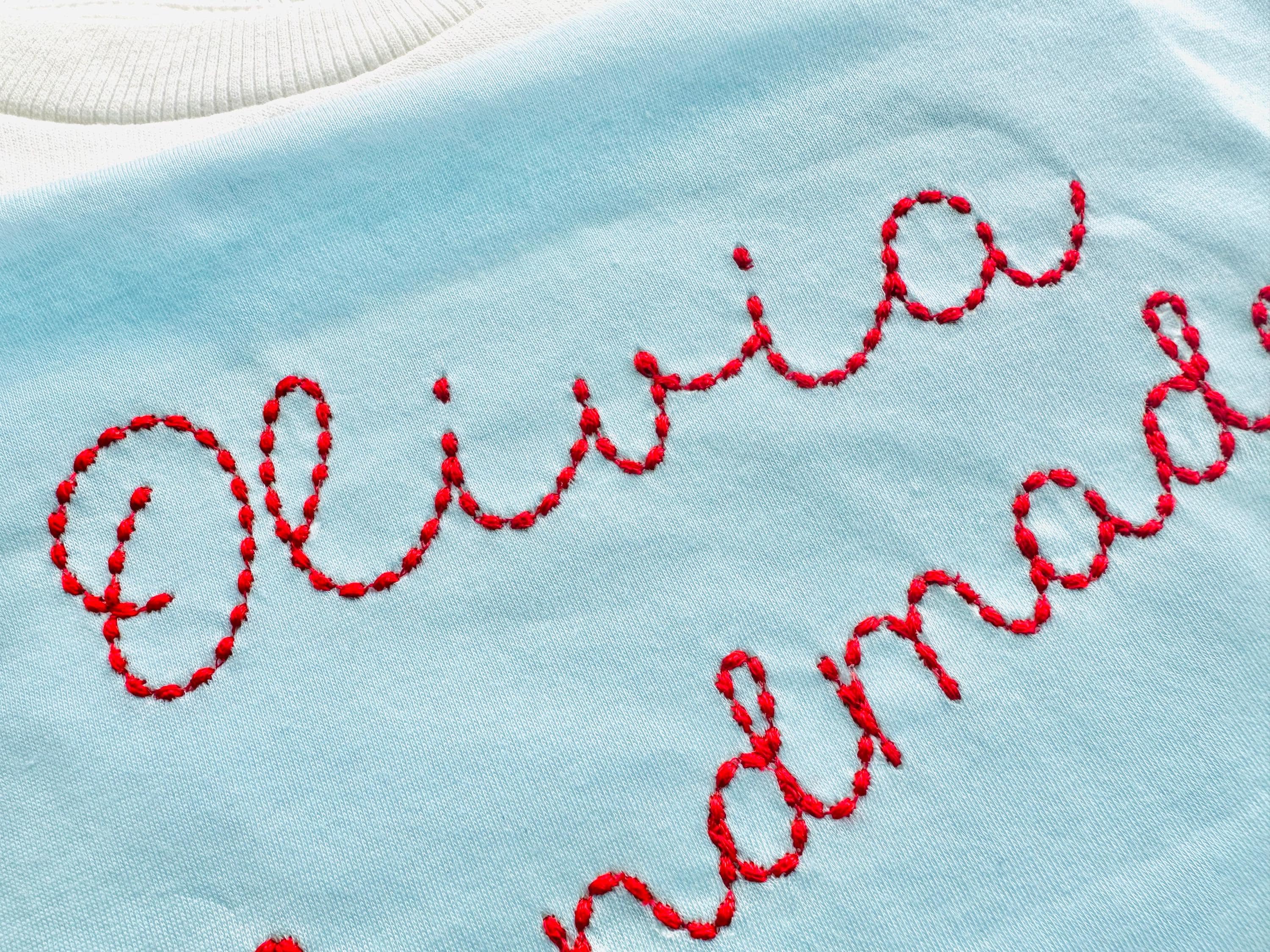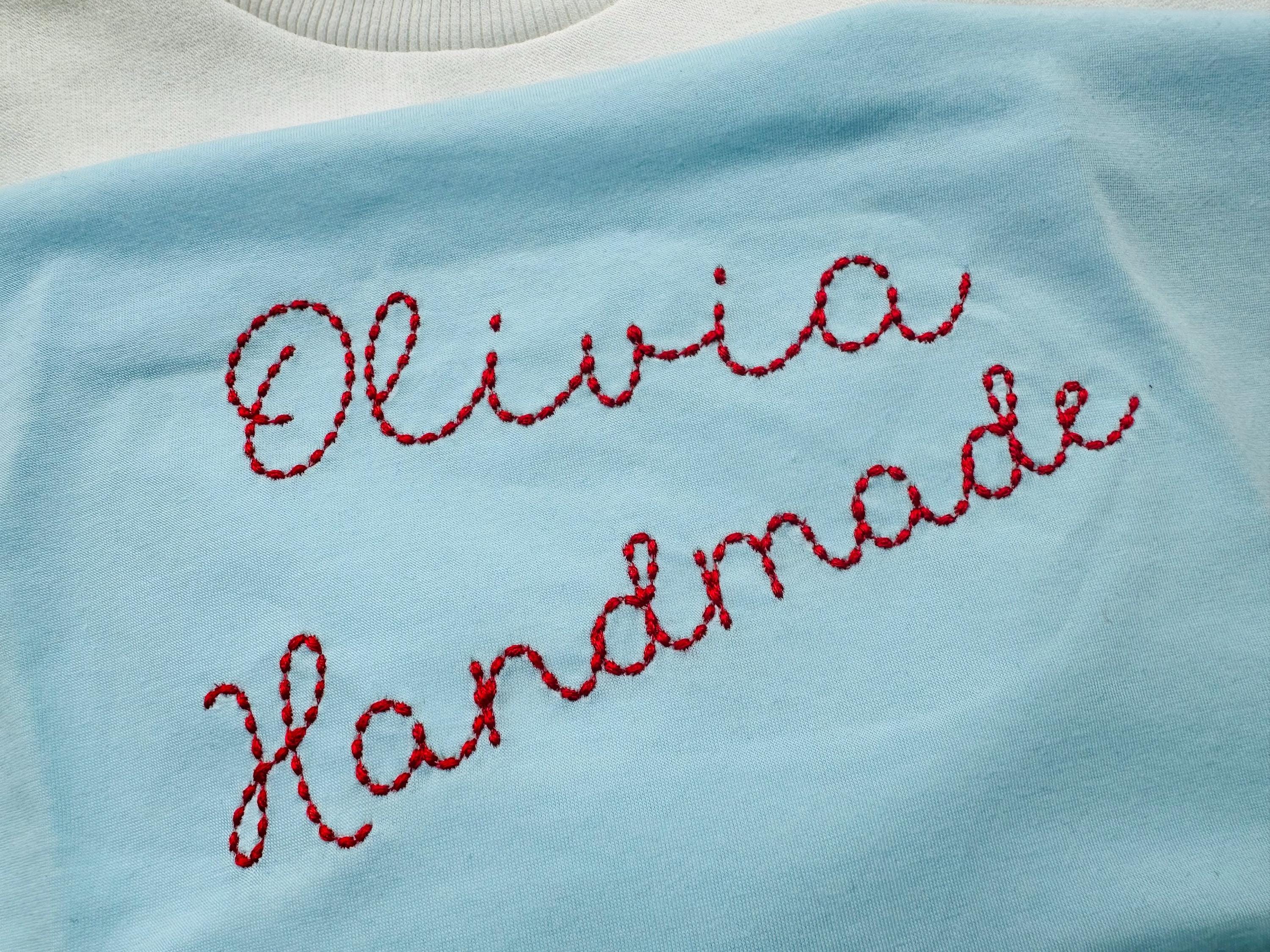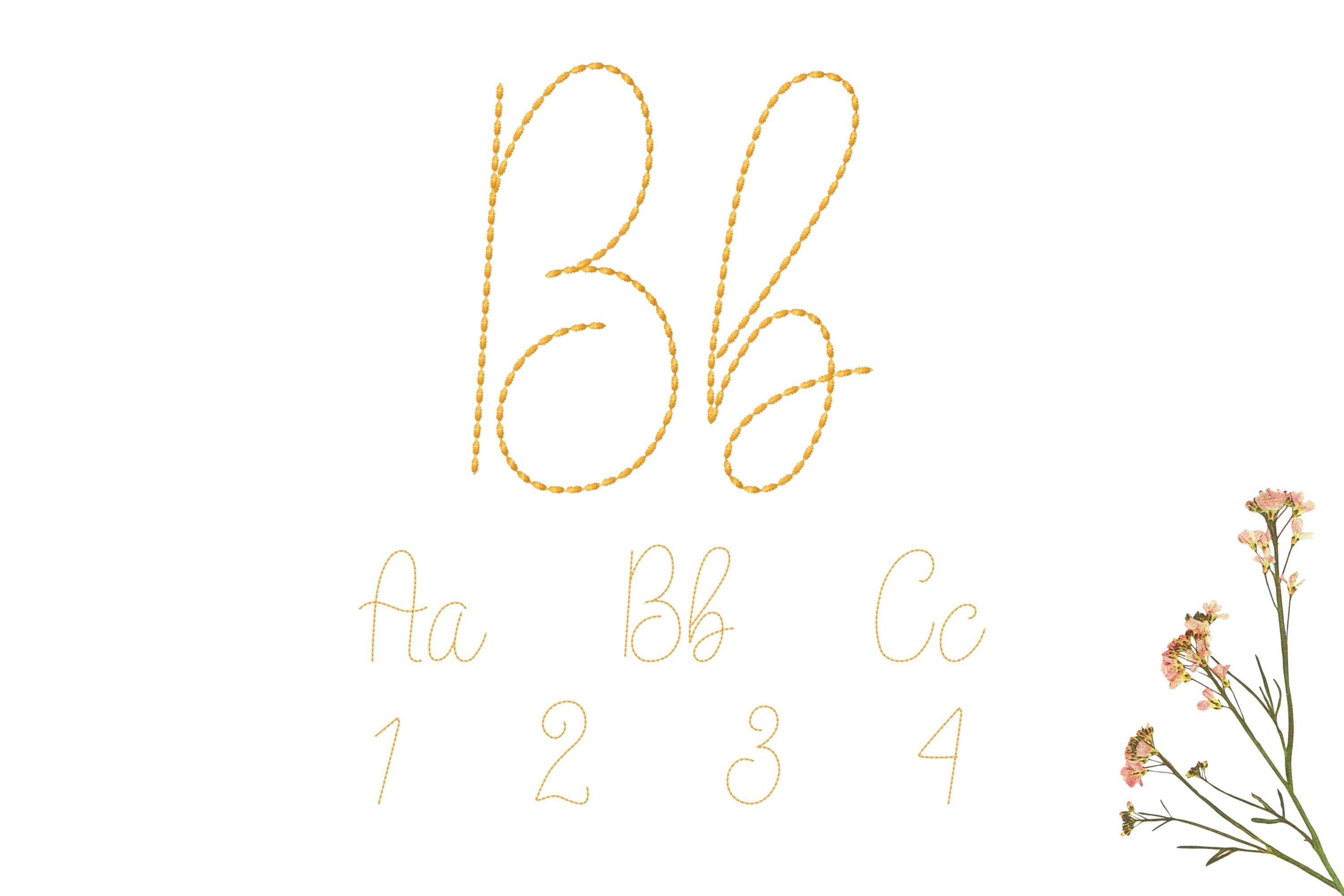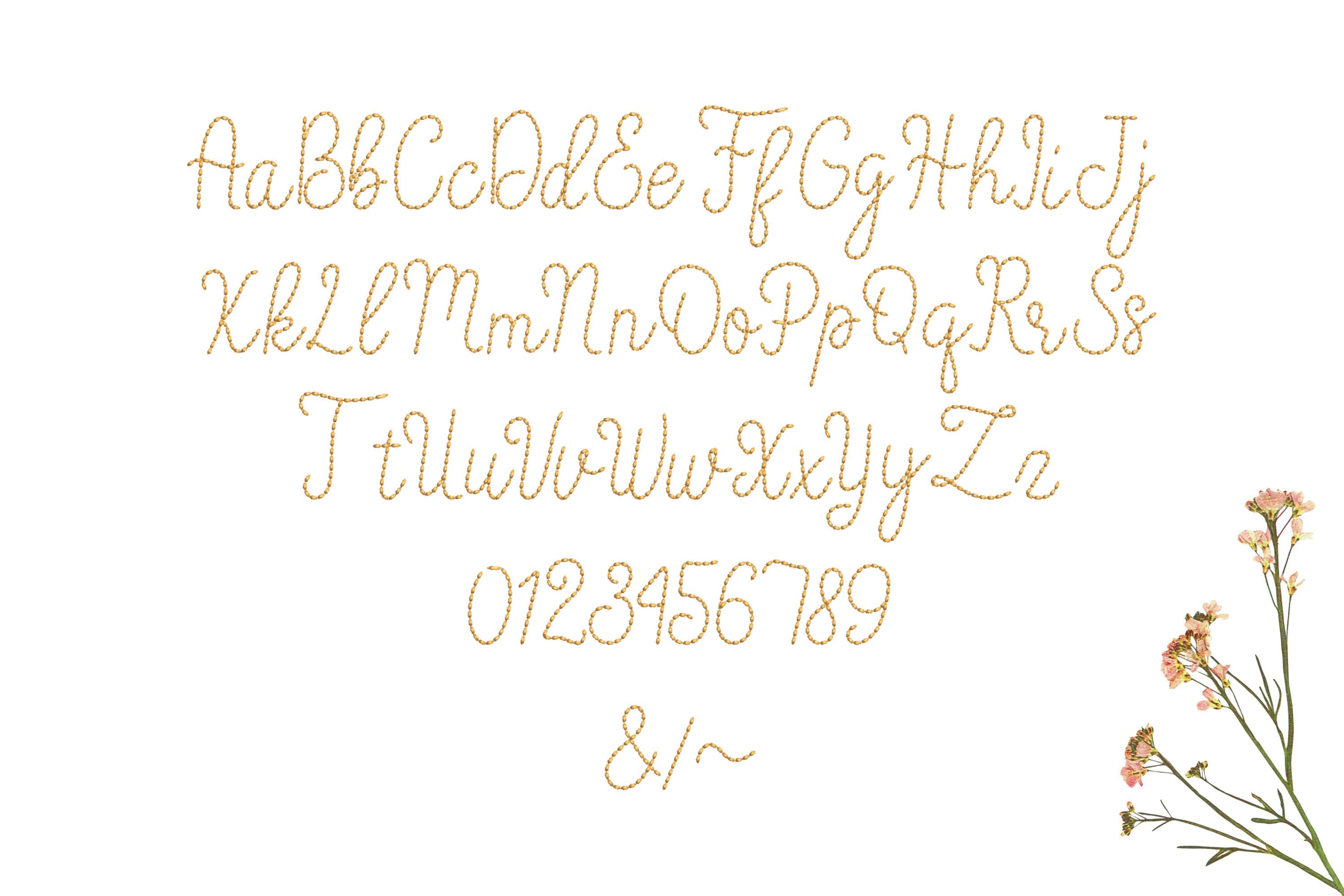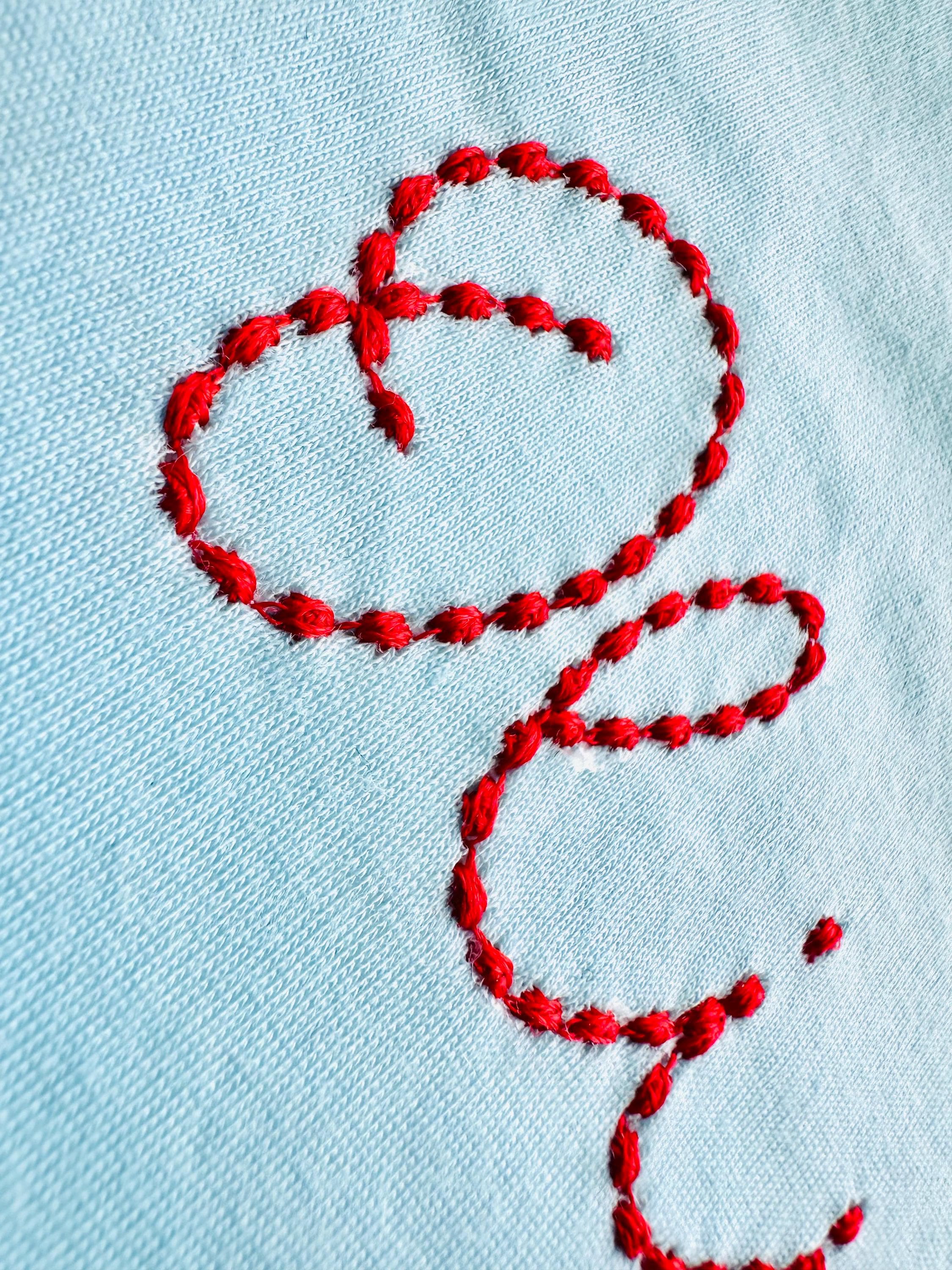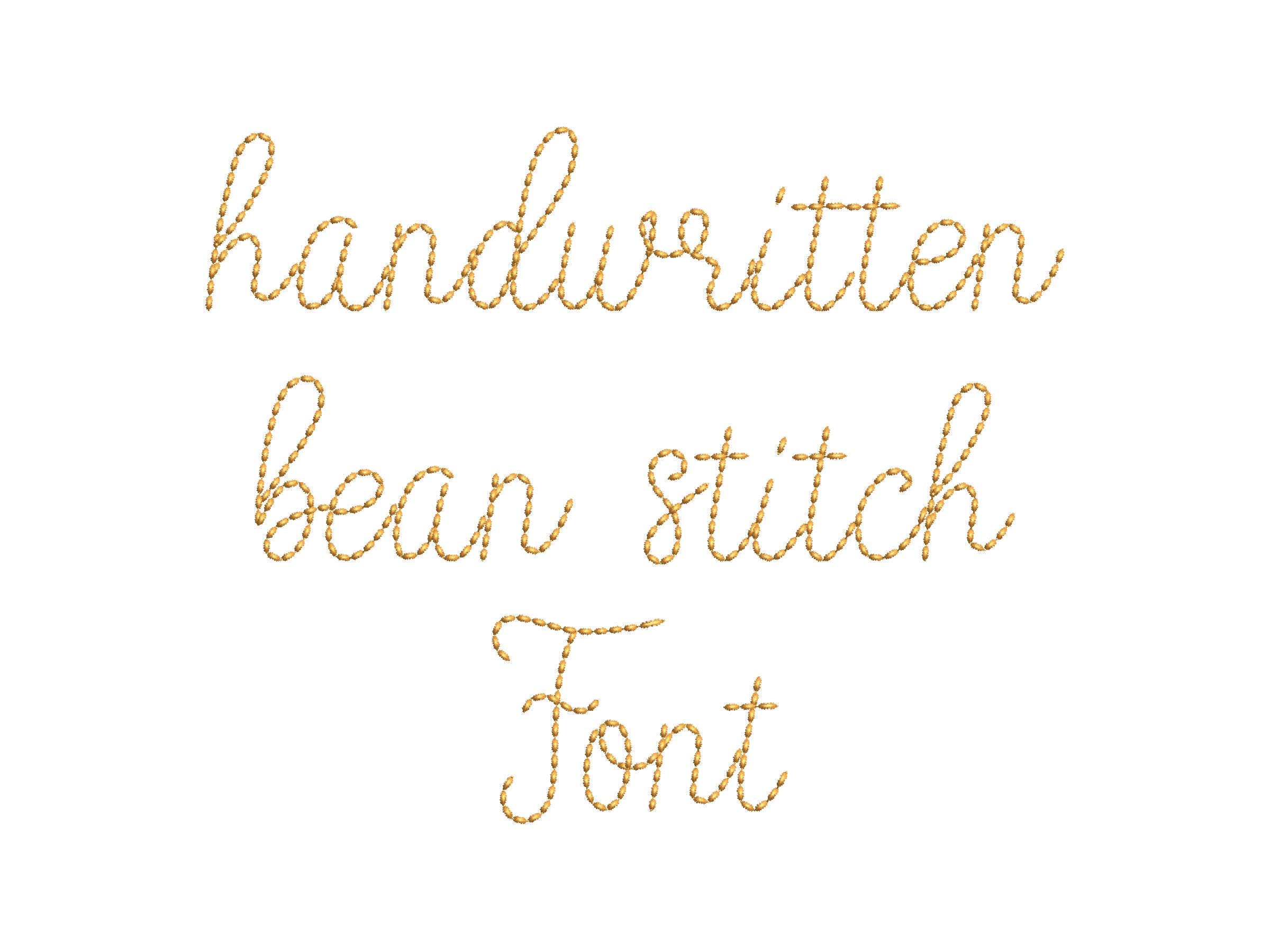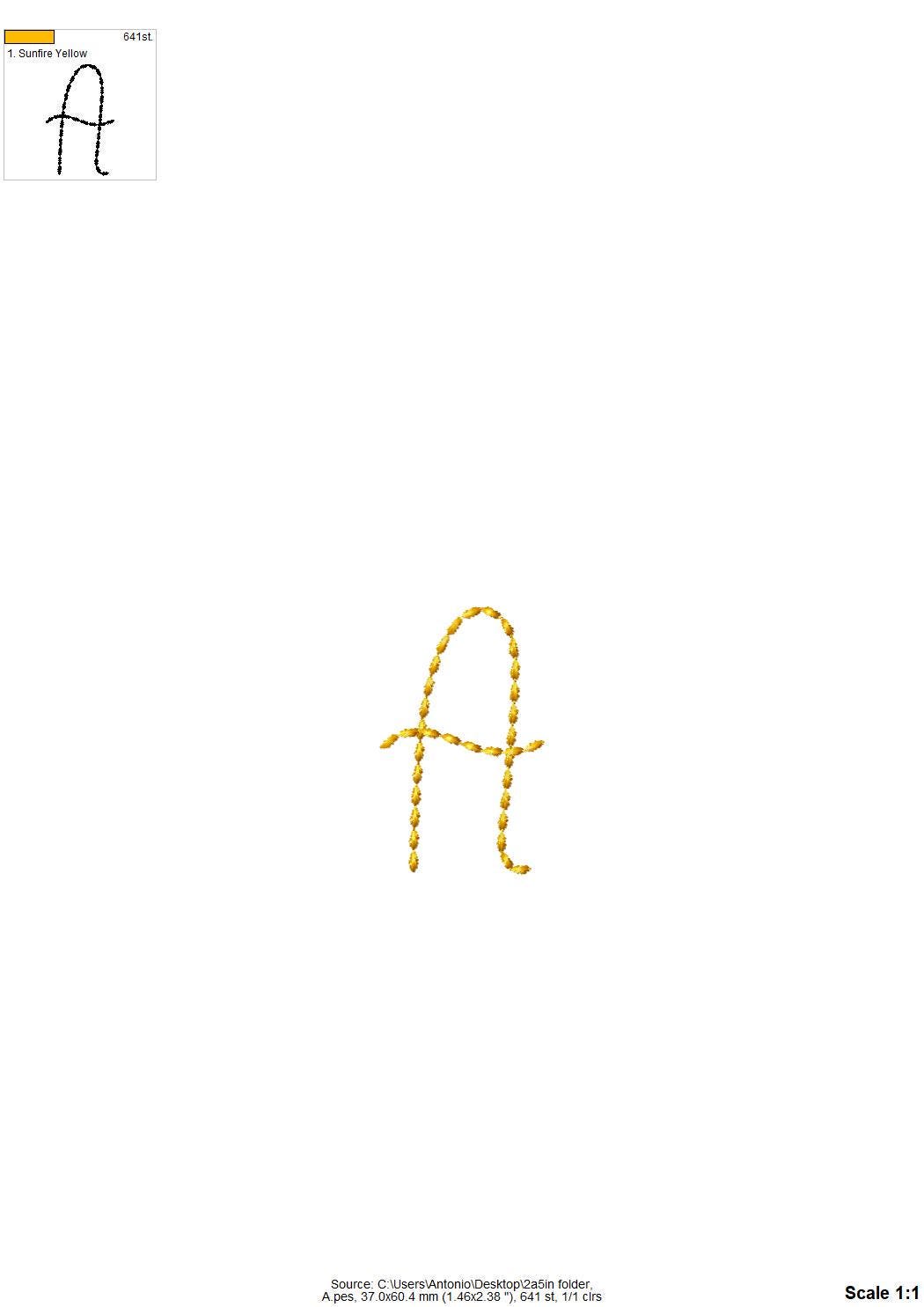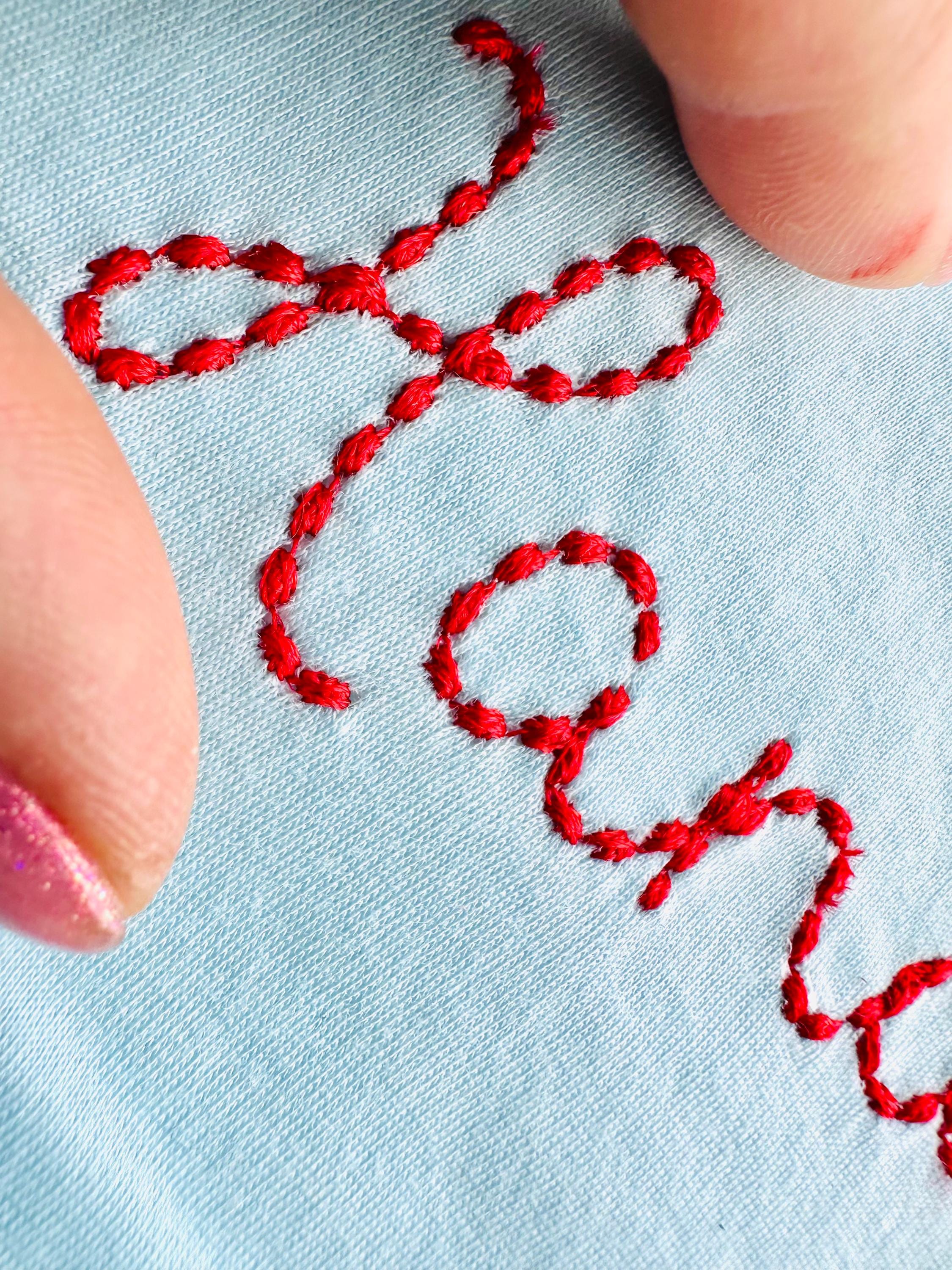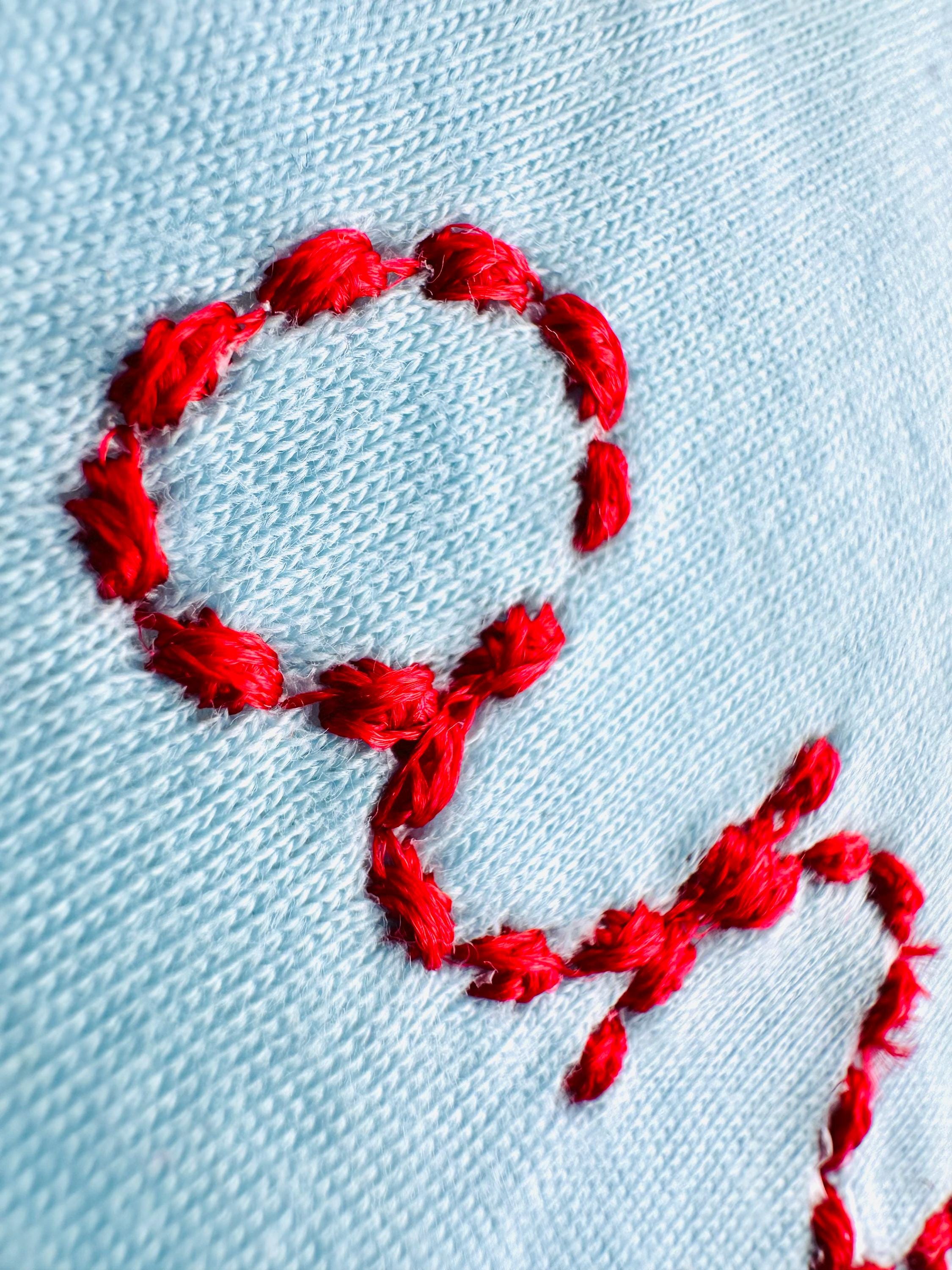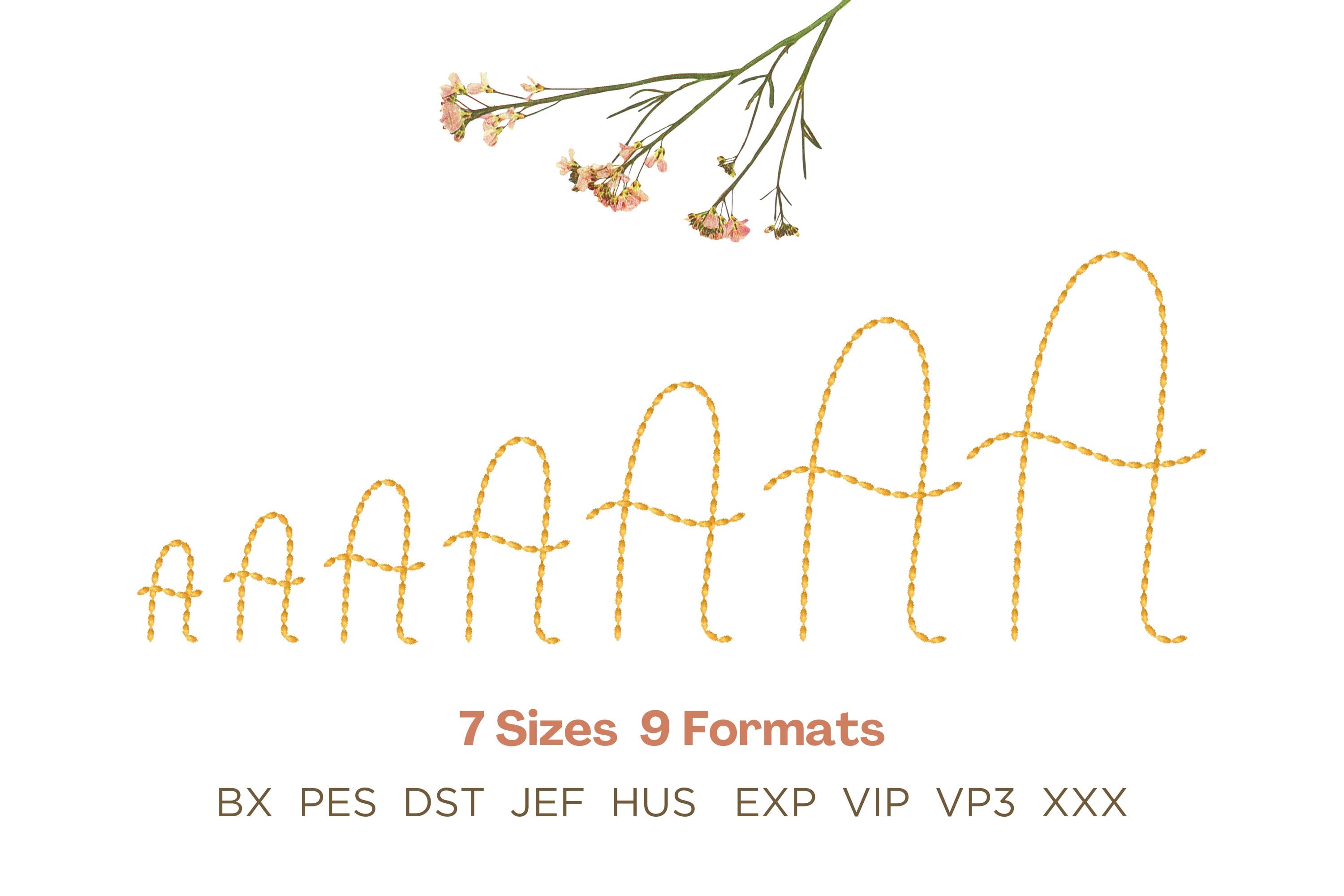
Handwritten script FONT Hand stitch effect bean stitch alphabet monogram machine embroidery designs letters and numbers 1.3 to 4.8 inch BX
Entire alphabet uppercase and lowercase letters Aa-Zz, numbers 0-9, and punctuation.
Very nice font when stitched out.